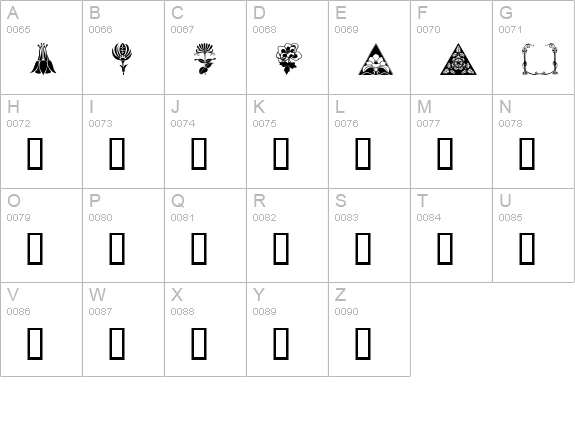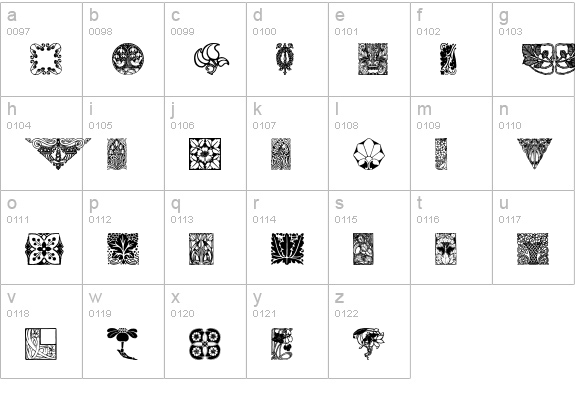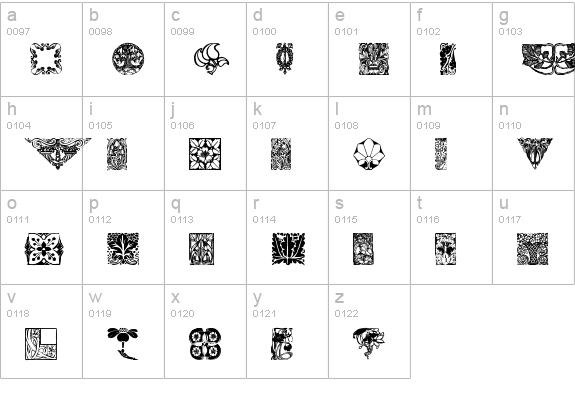
OldFloralIllustration Font Details
OldFloralIllustration font is a charming and elegant typeface inspired by vintage floral illustrations. Its intricate details and delicate curves evoke a sense of nostalgia and sophistication, making it perfect for adding a touch of classic beauty to any design project. This unique font features ornate floral elements intertwined with each letter, creating a whimsical and artistic look. Whether you're designing invitations, posters, or branding materials, OldFloralIllustration font will bring a touch of timeless elegance to your creations. Best of all, OldFloralIllustration font is available for free download at FontsMarket.com. Don't miss out on this exquisite typeface that will add a touch of vintage charm to your designs. Download OldFloralIllustration font today and let your creativity blossom!